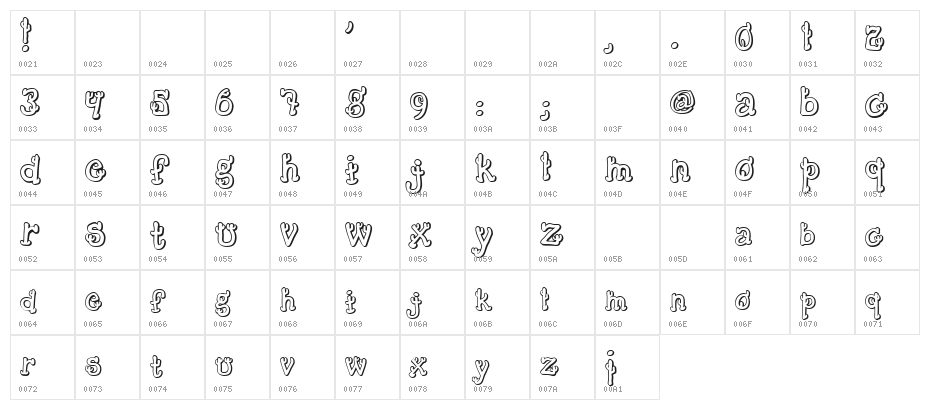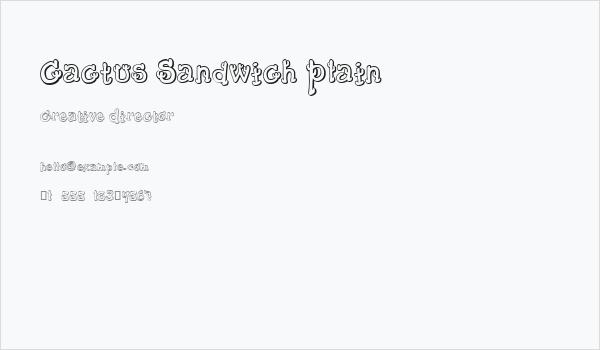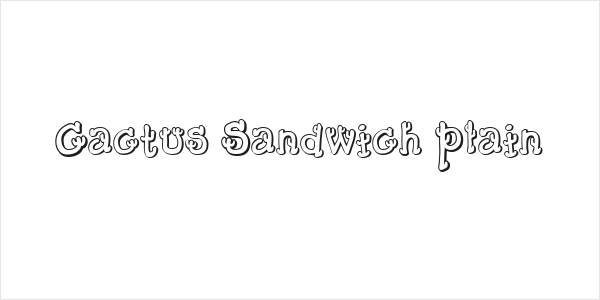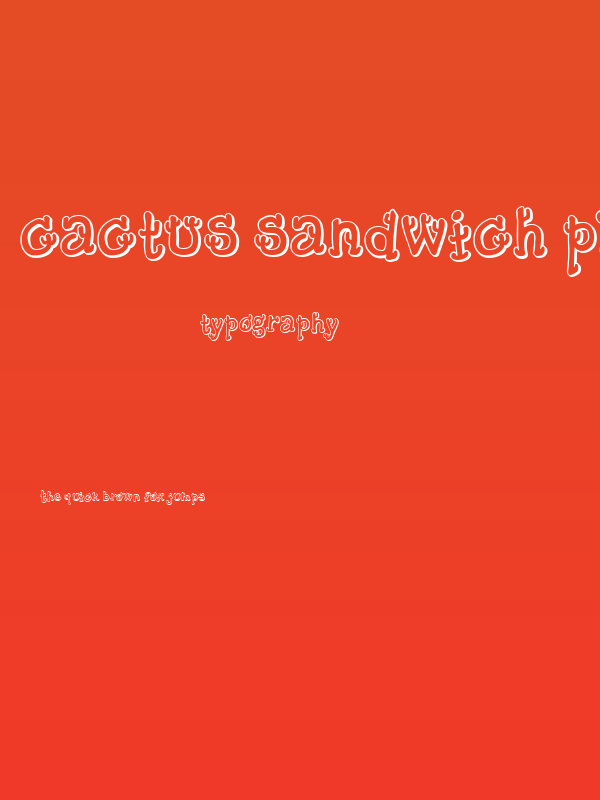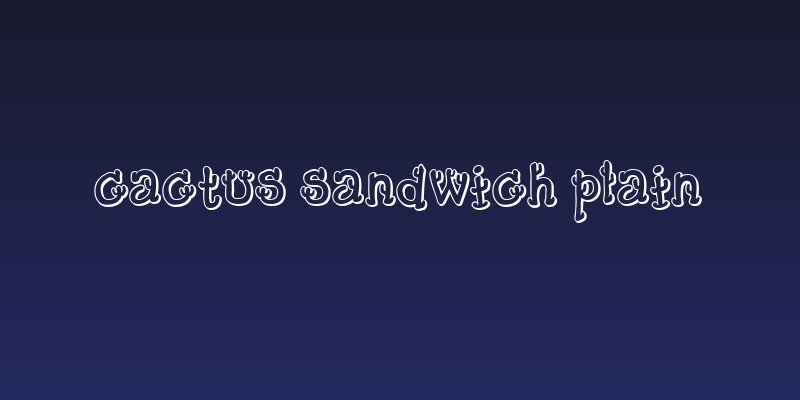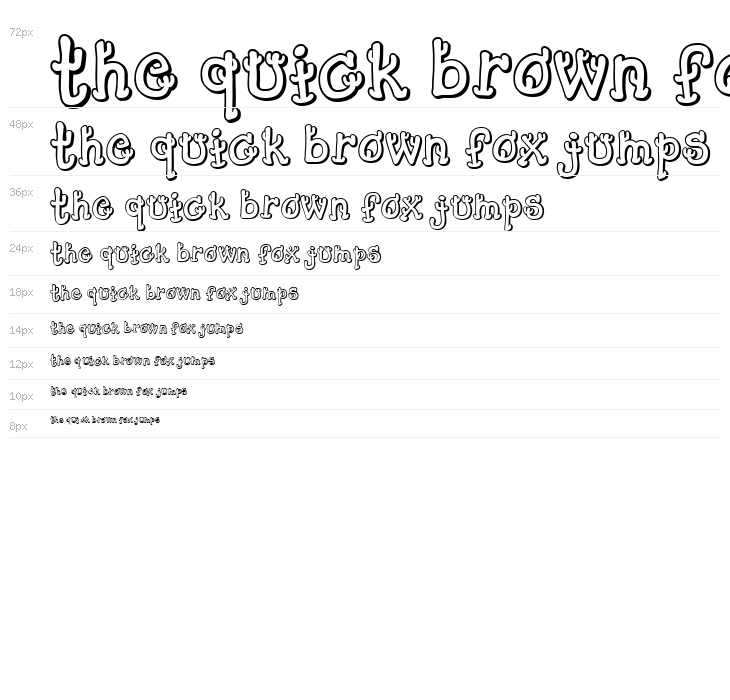
Cactus Sandwich Plain Font
Cactus Sandwich Plain Description
This font features a playful and whimsical design, characterized by its bold, outlined letters with a unique, hand-drawn style. Each character has a distinct, cartoonish flair, with exaggerated curves and a slightly uneven baseline, giving it a lively and dynamic appearance. The font's decorative nature is enhanced by its thick outlines, which create a striking contrast against the inner strokes. This style is reminiscent of comic book lettering, making it ideal for projects that require a fun and engaging visual impact.
| Proposed Projects | Ideal for children's books, comic strips, playful branding, and eye-catching posters. |